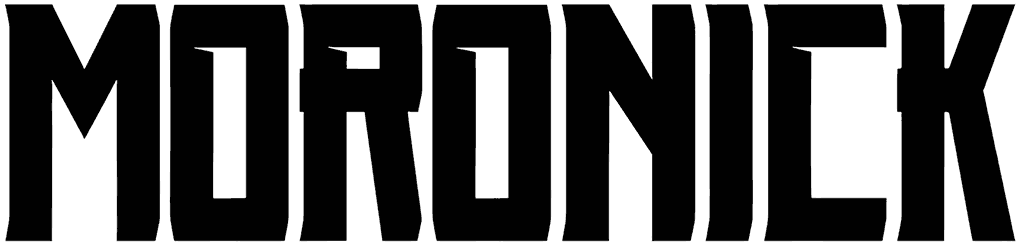
Moronick Font
If you are looking for a strong and futuristic vibe, we suggest you try Moronick. This geometric font would be a perfect option for branding, headings, logotypes, product packaging, and posters. This retro font only lacks the lowercase of the alphabet, but the rest is awesome enough to support you in any project. Don’t forget to visit Resource Boy more often for daily updates.